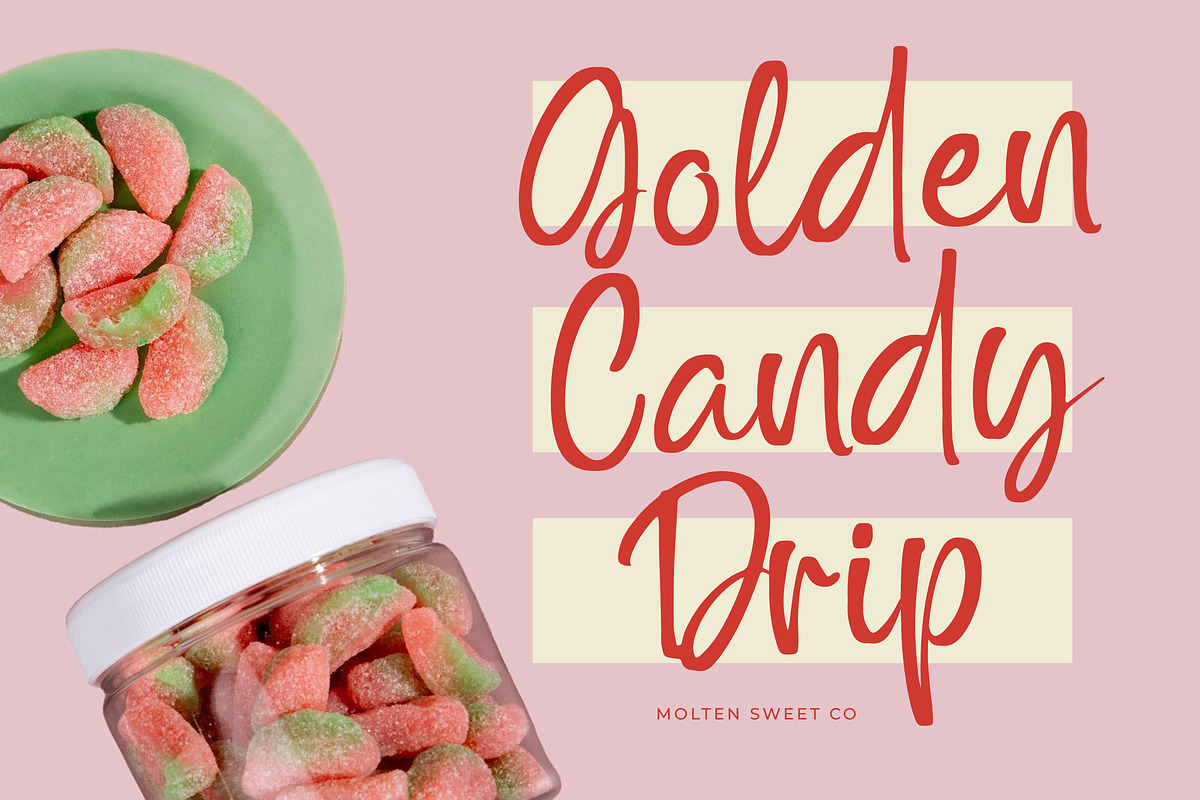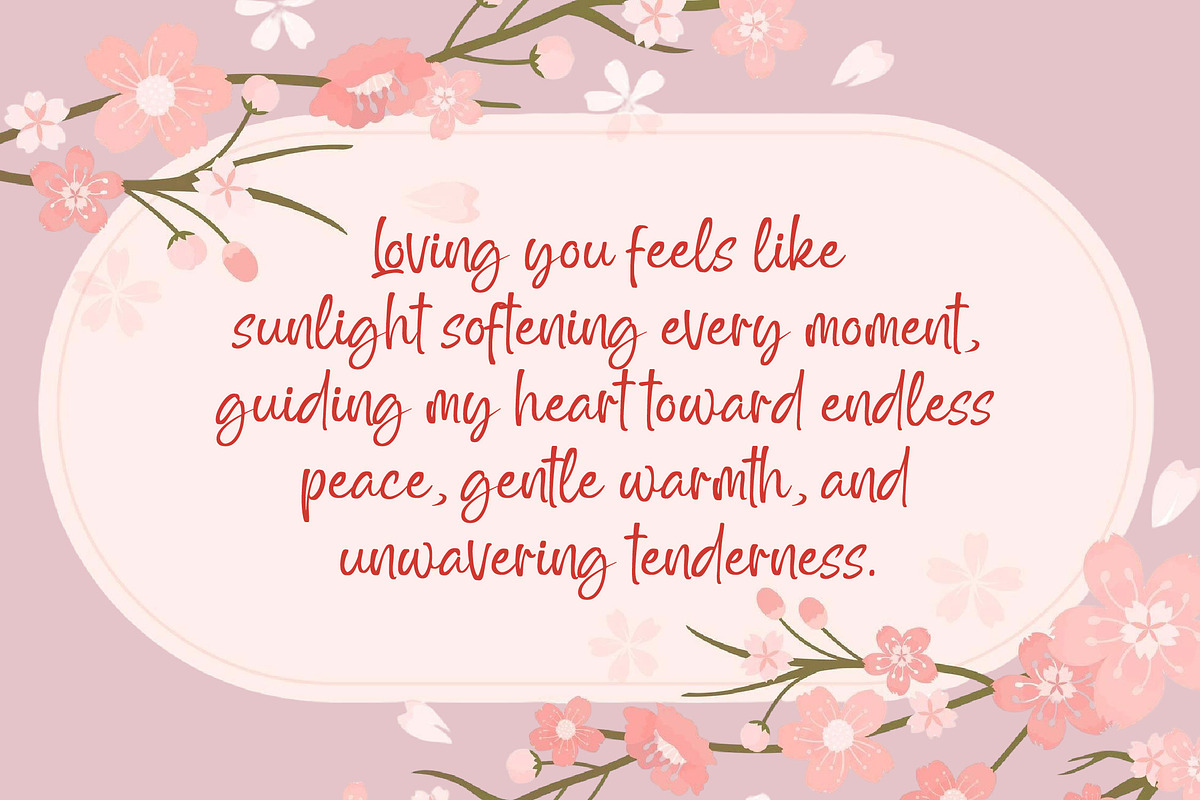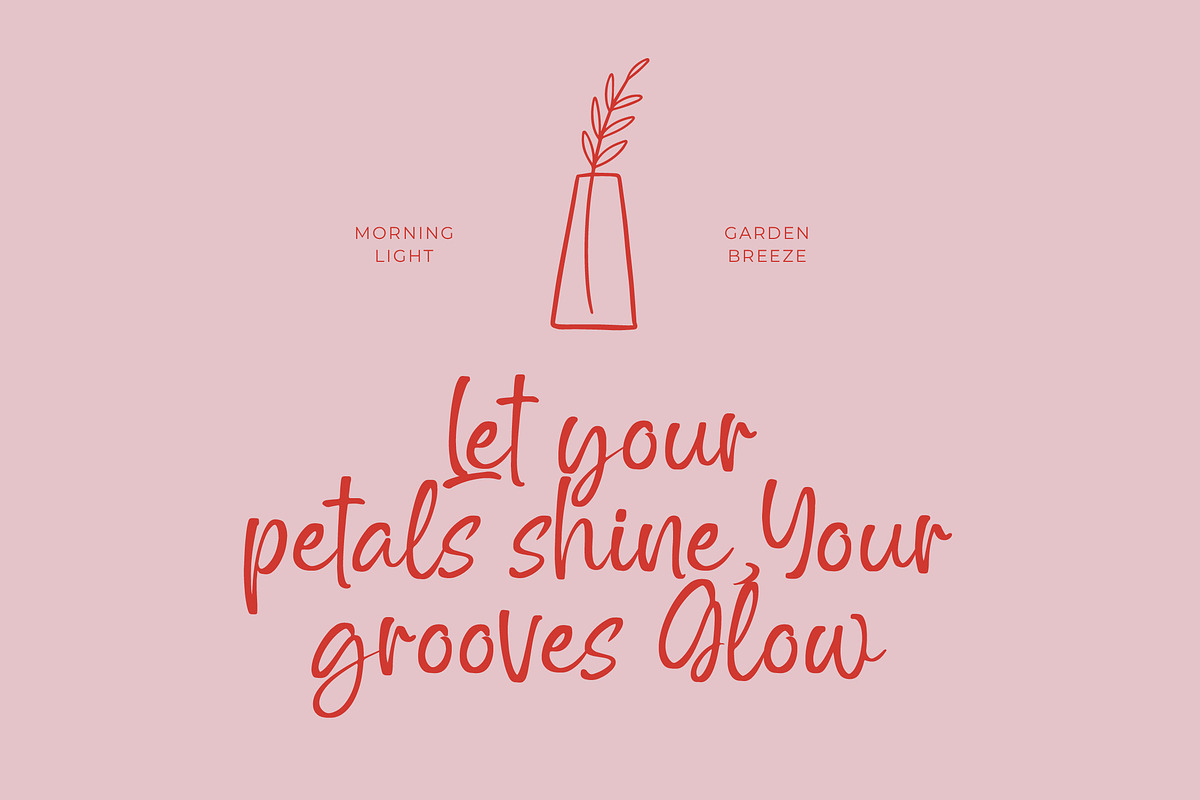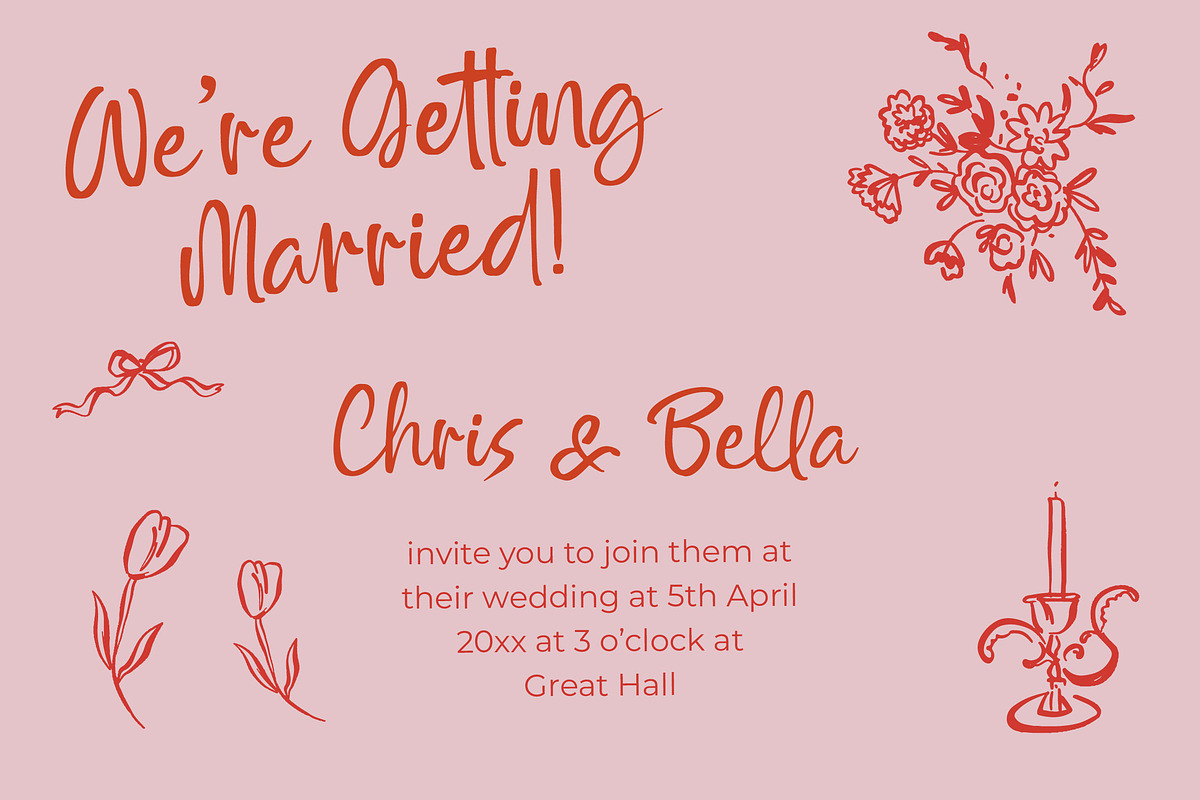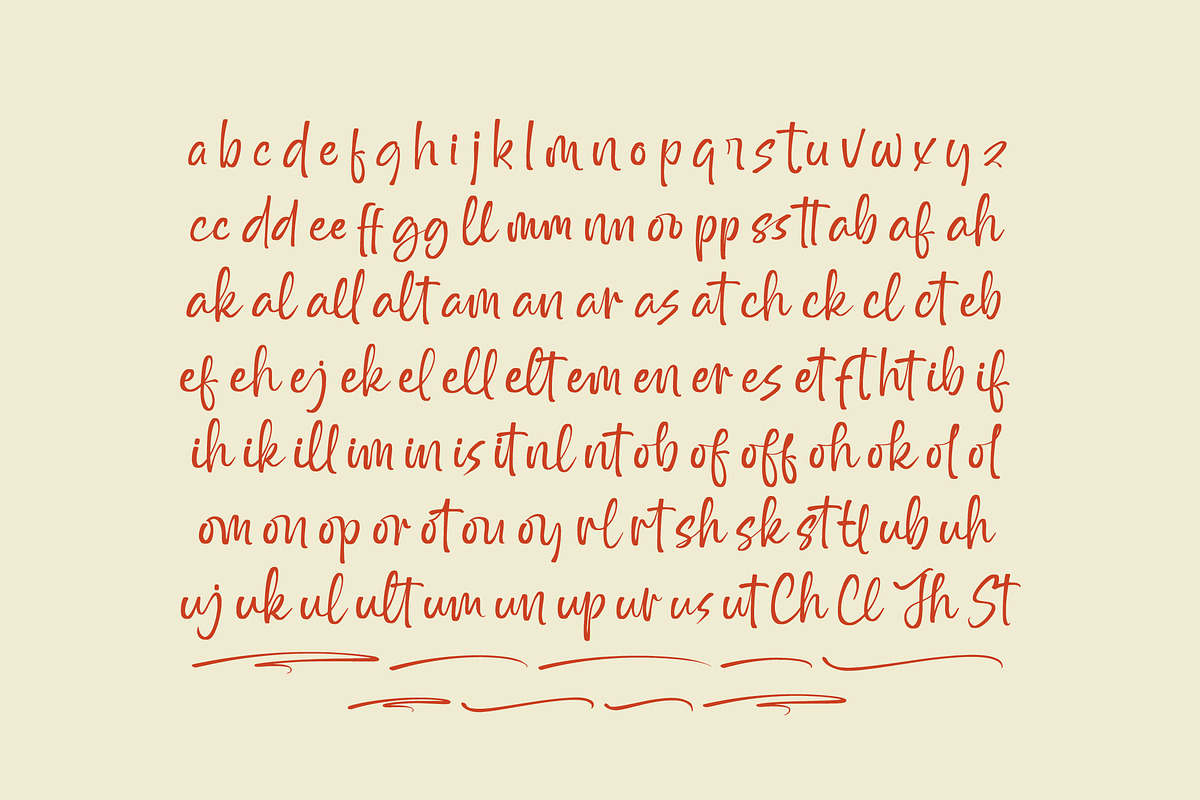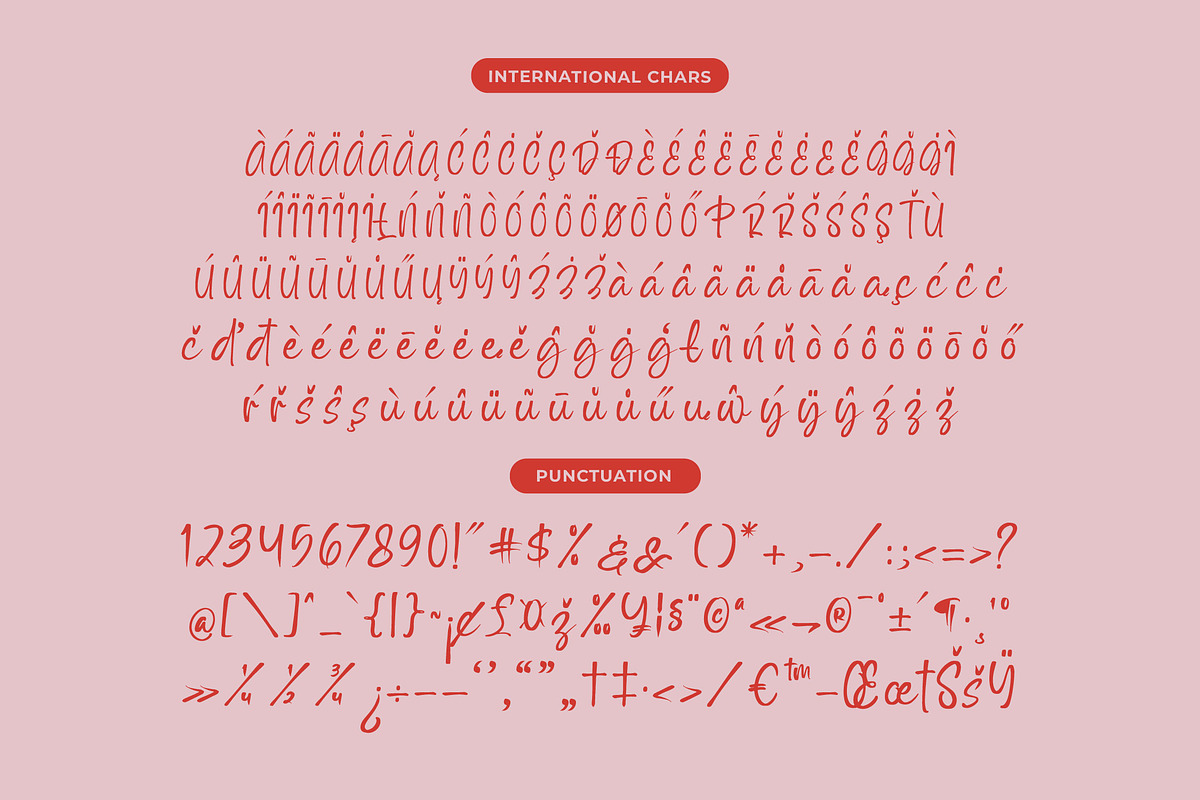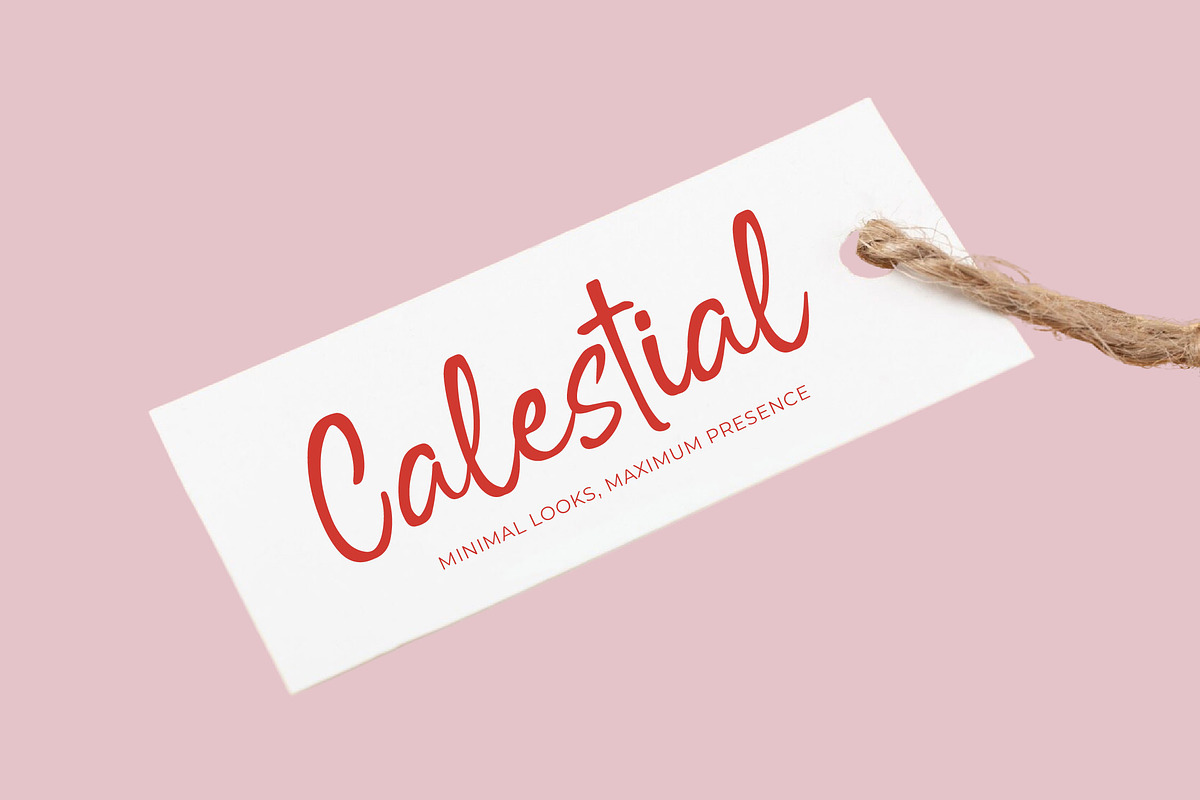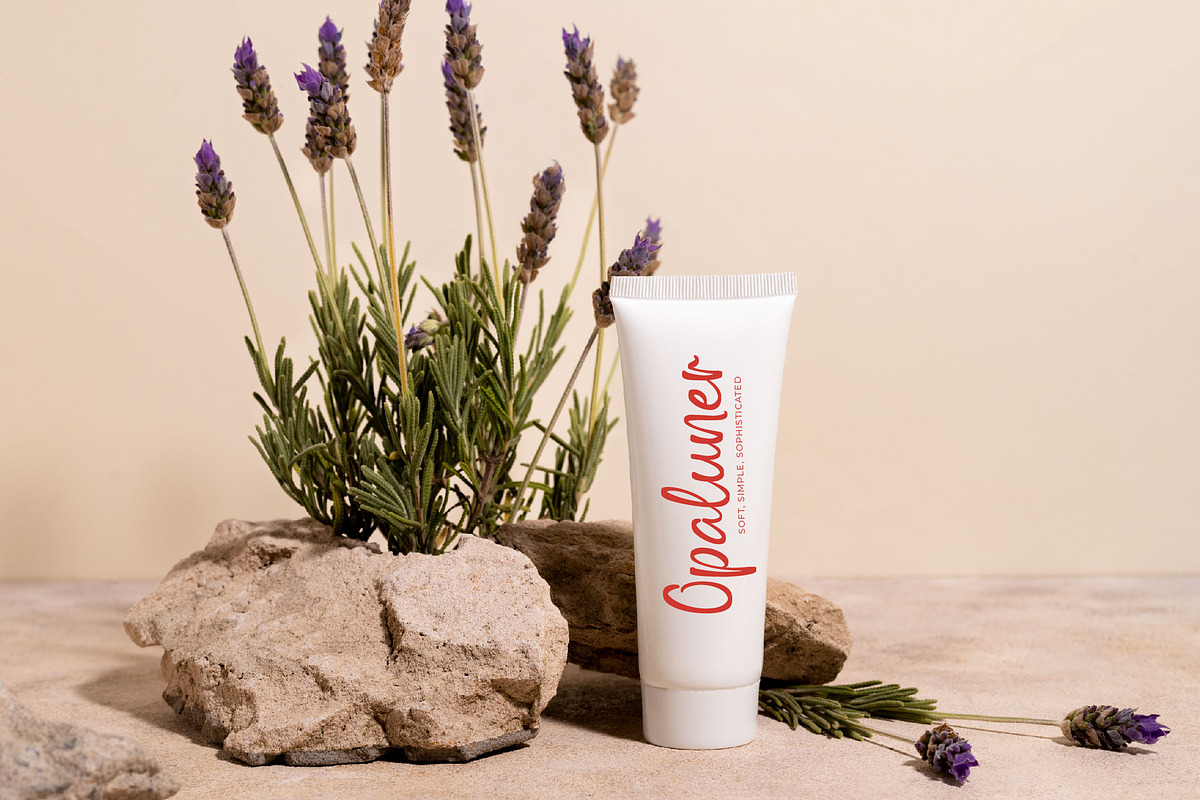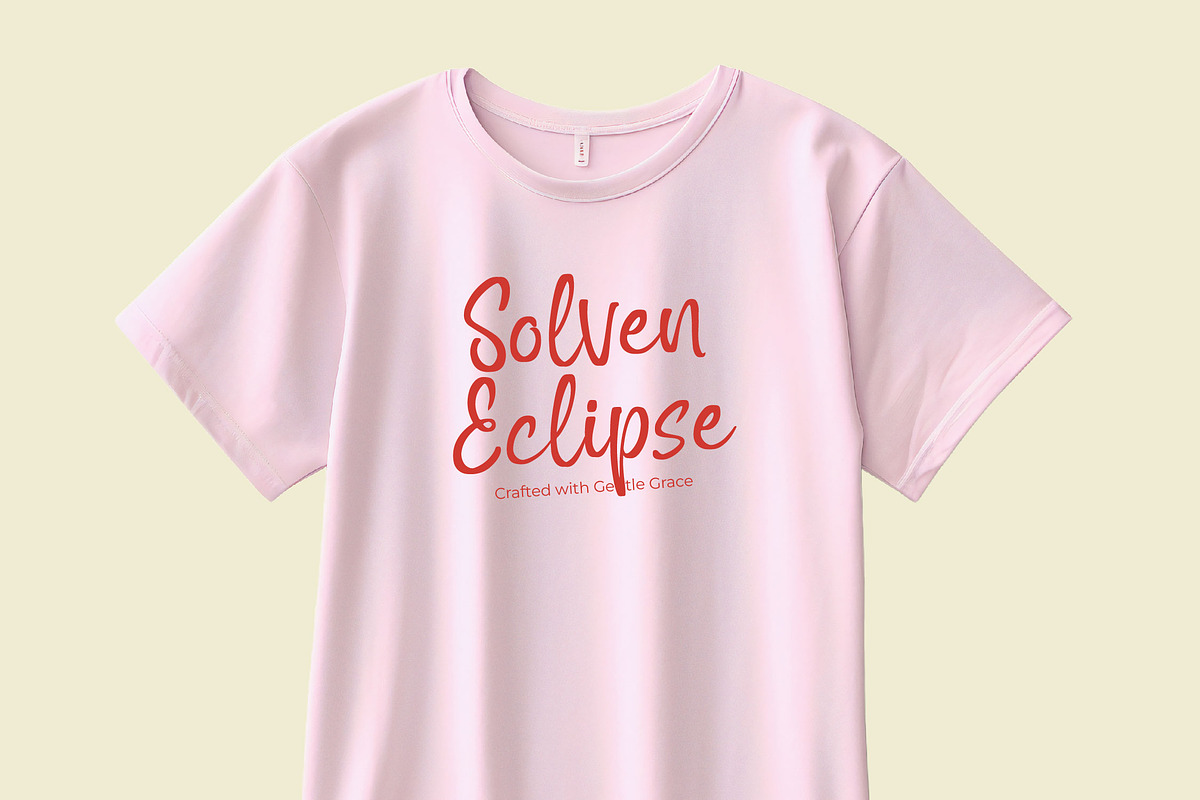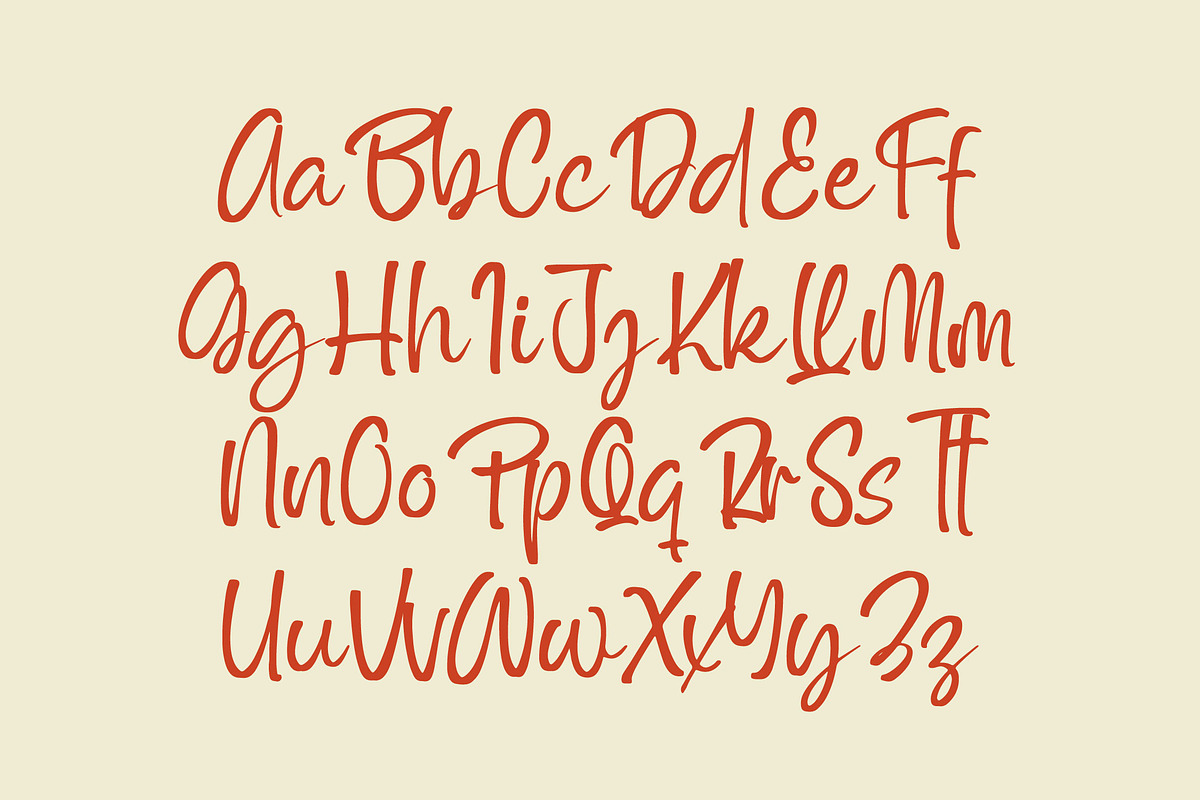
Outline Delighta Aesthetic Font
Outline Delighta - Aesthetic Handwritten Font , Outline Delighta is an aesthetic handwritten script font crafted with a smooth, flowing stroke that delivers a warm, casual, and expressive charm for modern branding needs. Designed for creators who want handwriting that feels artistic yet clean, this font features 93 natural ligatures and 28 stylistic alternates, giving you full flexibility to build organic logos, personal signatures, greeting cards, packaging designs, social media visuals, and lifestyle-themed projects. Its soft curves and relaxed handwritten structure make Outline Delighta an ideal choice for brands seeking authenticity, personality, and a genuinely handcrafted feel that stands out effortlessly.